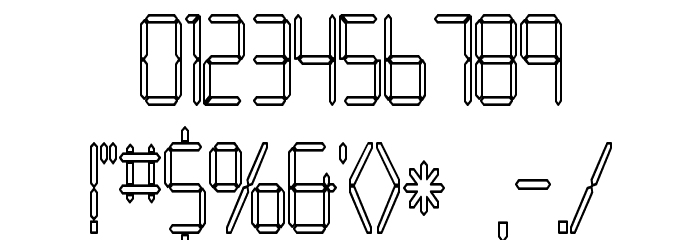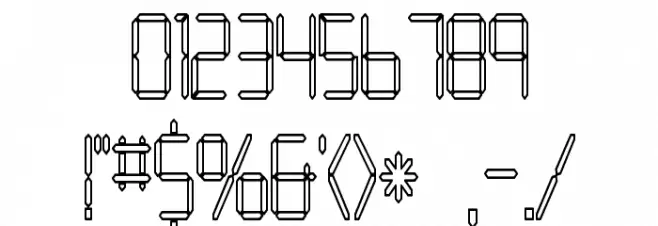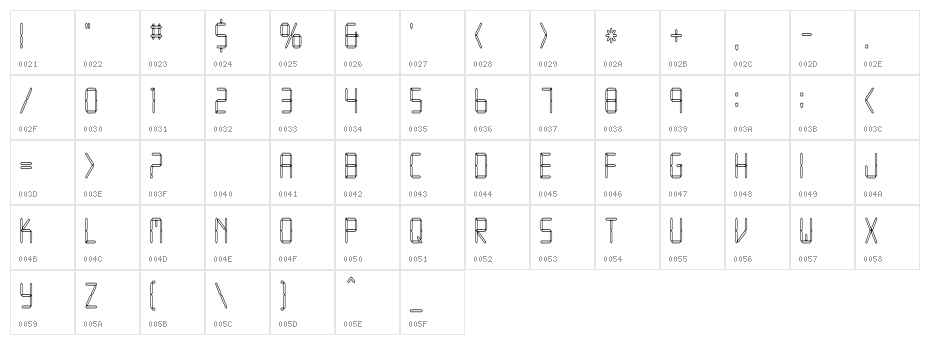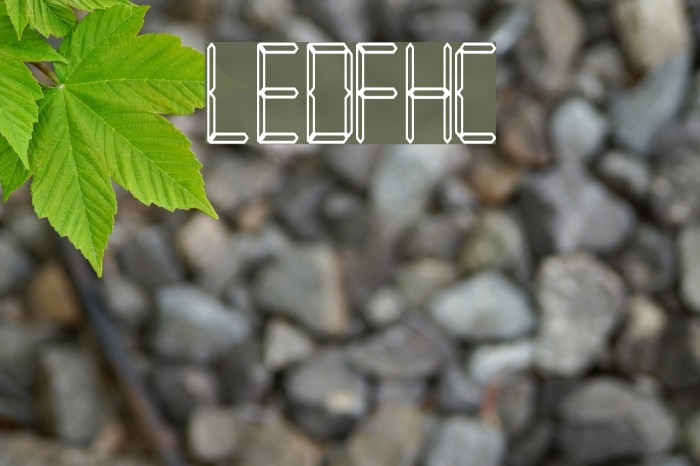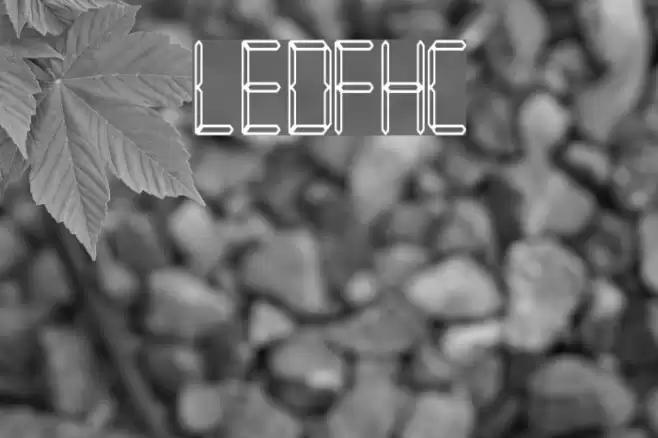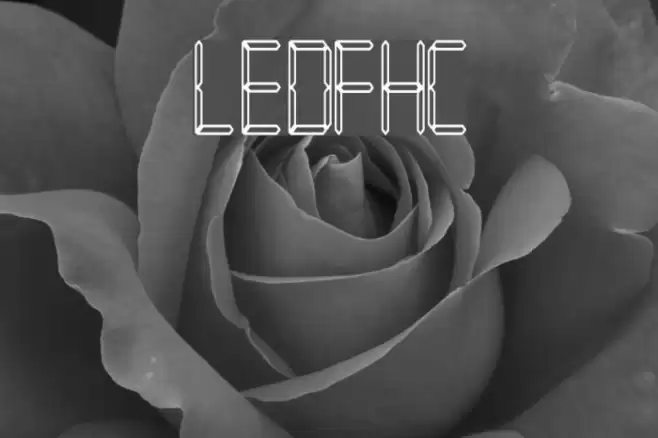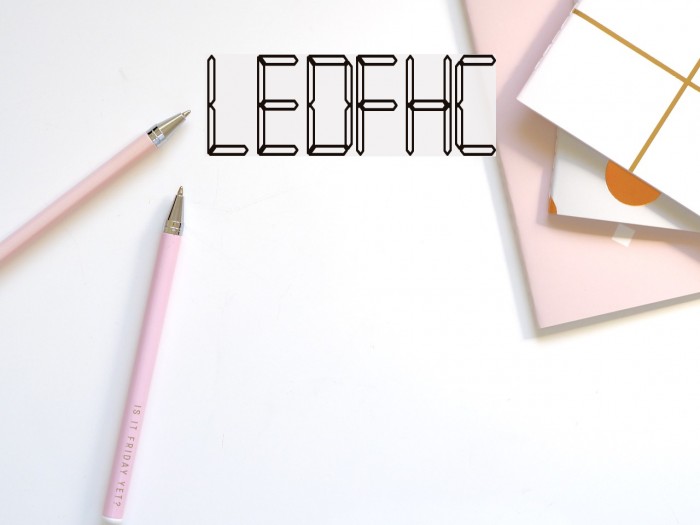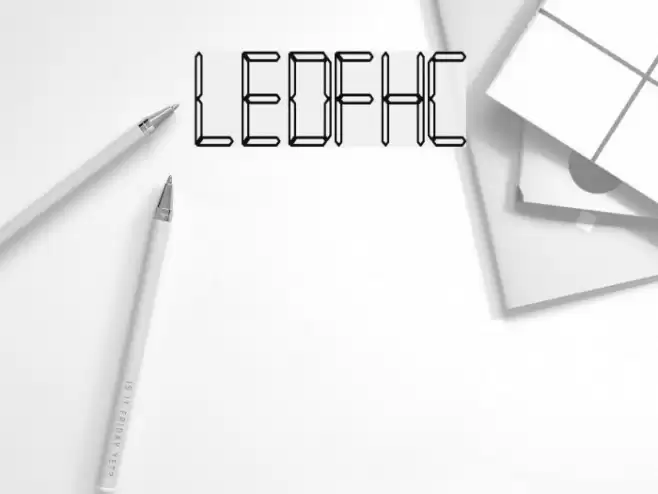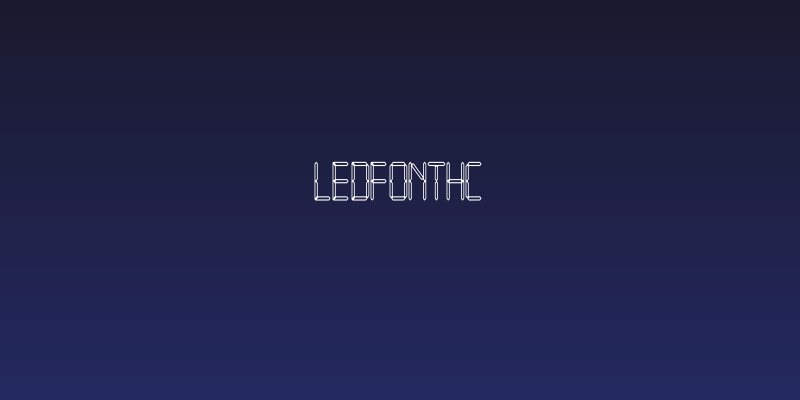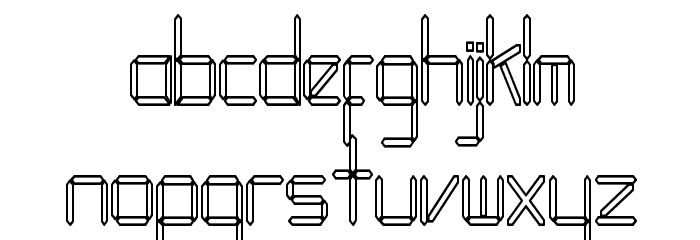
LEDFontHC Font
LEDFontHC Description
This font features a geometric, digital-inspired design reminiscent of LED displays. Each character is constructed with a series of straight lines and angles, creating a structured and futuristic appearance. The uppercase and lowercase letters maintain a consistent height, while the numerals and special characters follow the same stylistic approach. The font's design is clean and modern, with a focus on readability and a unique aesthetic that stands out in digital and tech-themed projects. Its distinct style makes it suitable for conveying a sense of innovation and technology.
| Use Case | Headlines, Logos, Digital displays |
| Proposed Projects | Ideal for digital displays, tech branding, futuristic posters, and electronic-themed designs. |